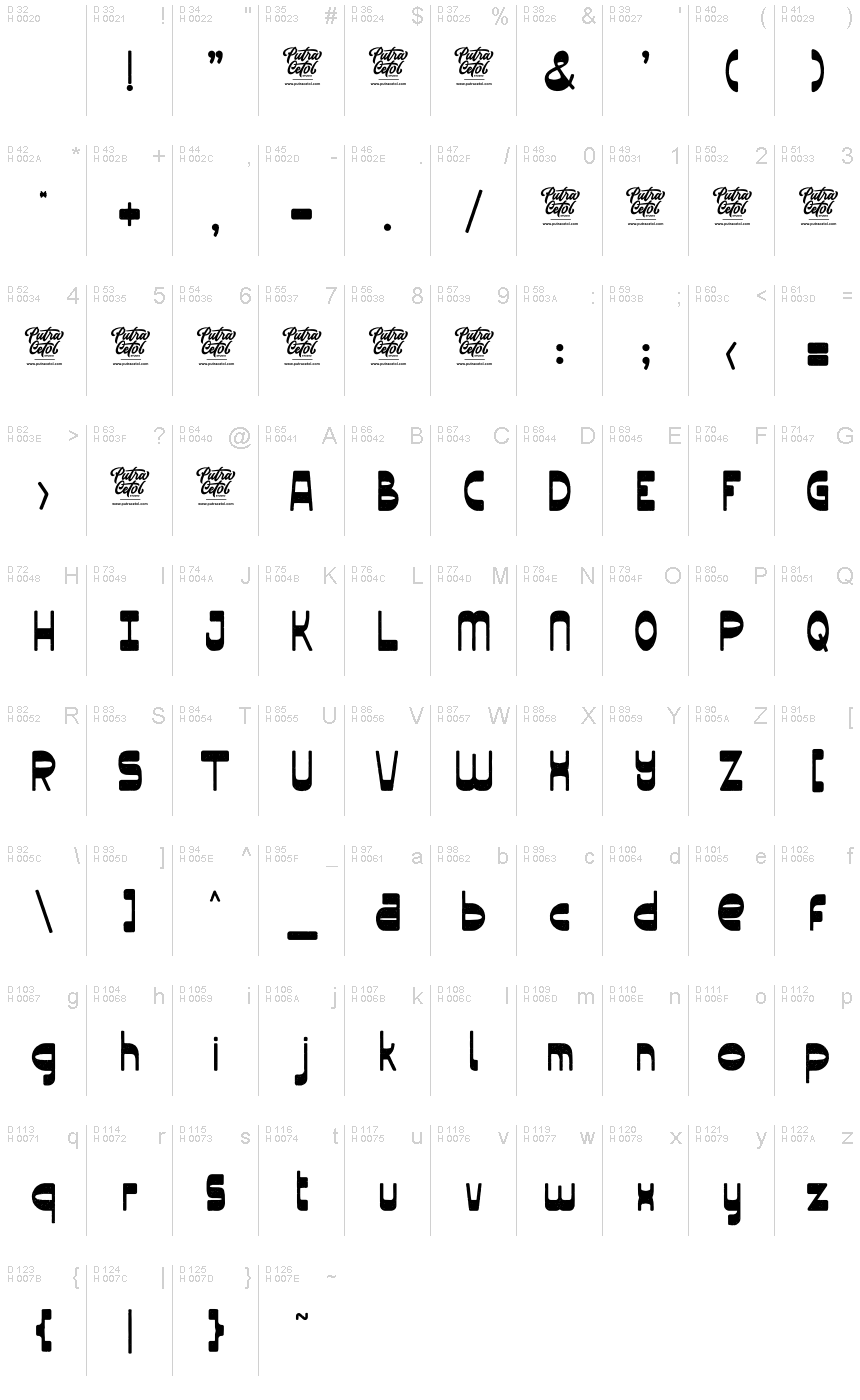
VERMOST
Vermost by PutraCetol Studio is a captivating display font that exudes a retro-inspired charm. With its condensed width and bold, distinctive letterforms, this font commands attention and evokes a sense of nostalgic allure. The sharp, angular design elements and the unique letter shapes seamlessly blend vintage aesthetics with a modern flair, creating a visually striking and memorable typographic experience.
Vermost's versatility shines through its ability to seamlessly integrate into a wide range of design applications, from eye-catching headlines and impactful logos to vintage-inspired branding and product packaging. Its condensed width makes it a compelling choice for projects requiring a bold, space-efficient typographic solution, while its retro-infused style adds an instant touch of character and personality to any design.